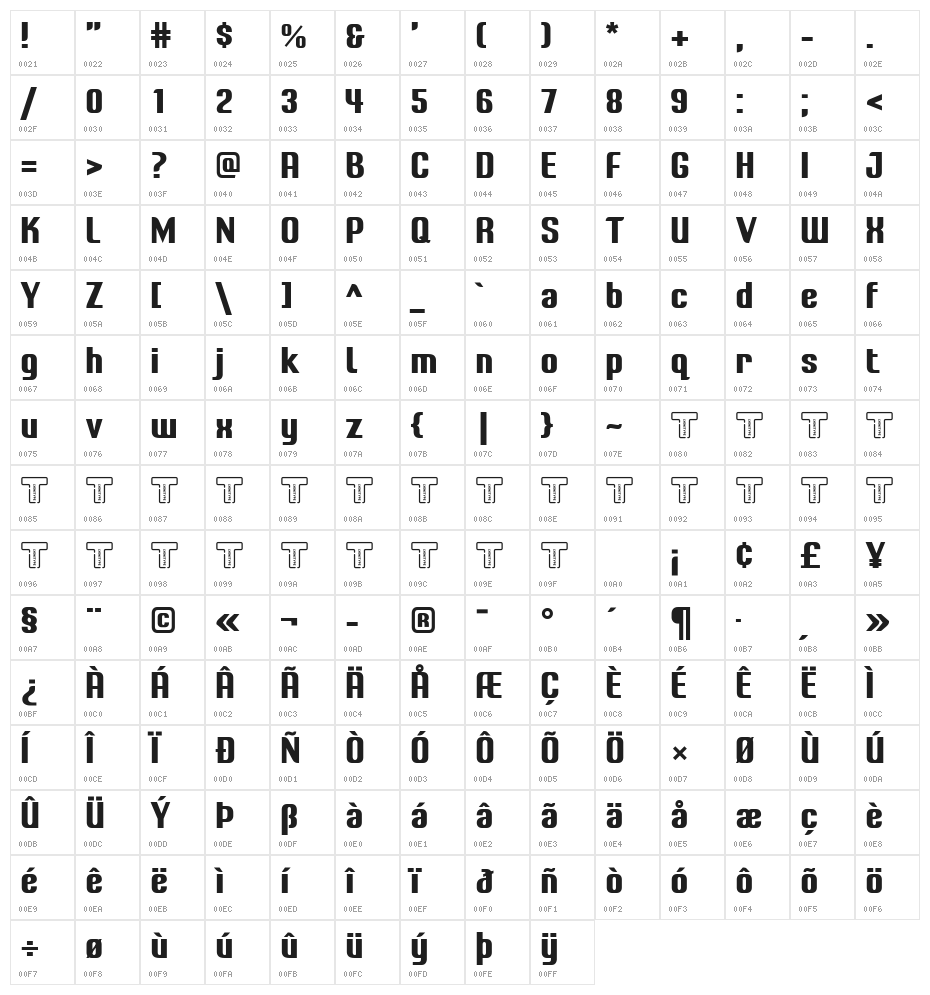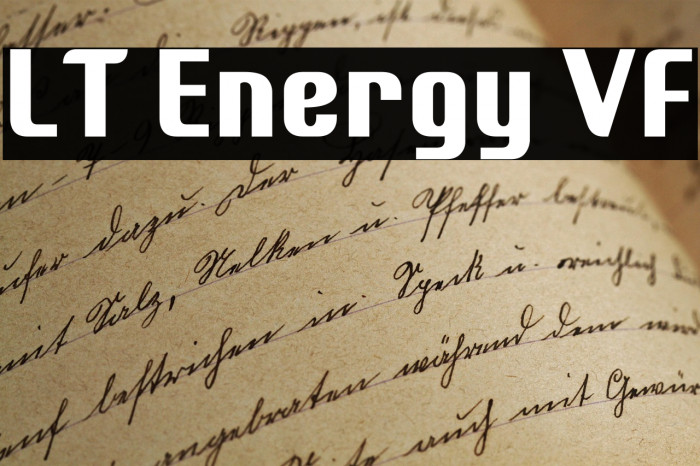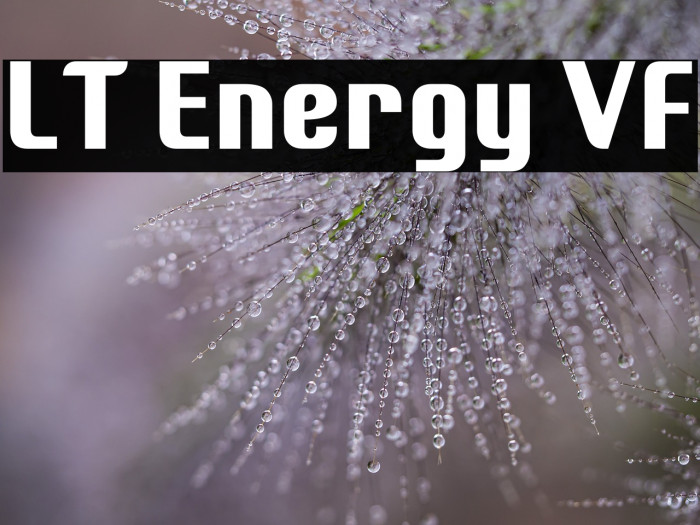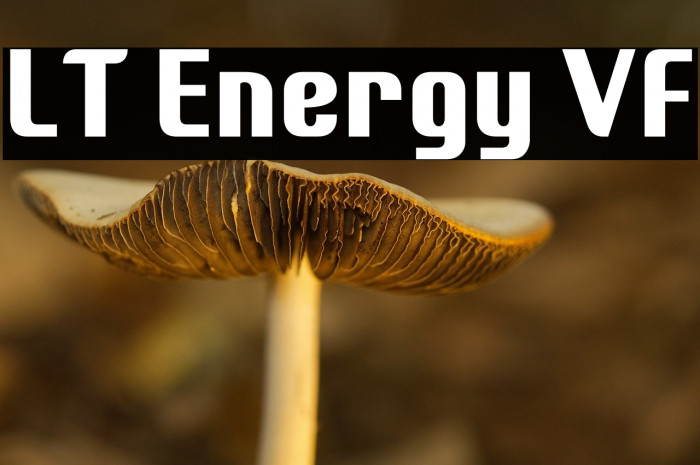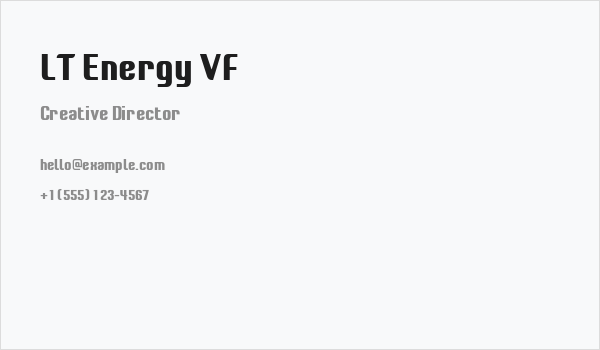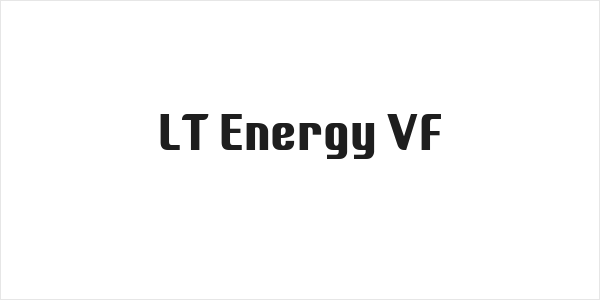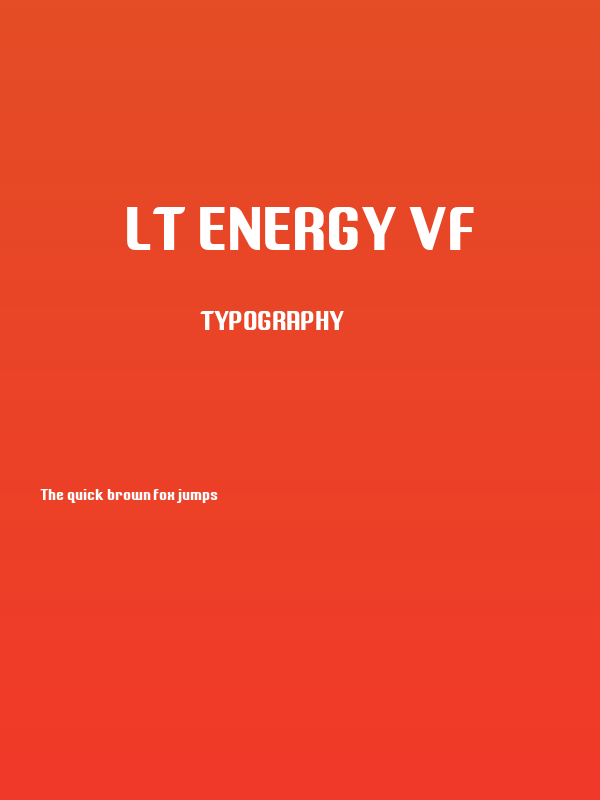
LT Energy VF Font
LT Energy VF Description
This font features a bold and impactful design with strong geometric shapes and a modern aesthetic. The uppercase letters are tall and commanding, while the lowercase letters maintain a consistent weight, offering a harmonious balance. The numerals are clear and robust, ensuring readability. Special characters are designed with the same boldness, making them stand out. The overall style is clean and contemporary, suitable for a variety of design needs.
| Proposed Projects | Ideal for branding, headlines, posters, and advertising where a strong visual impact is needed. |